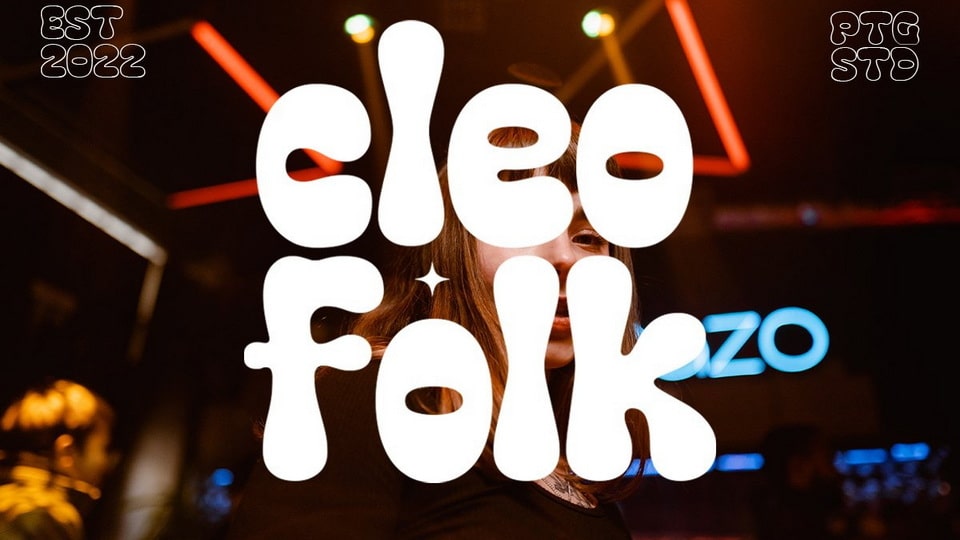
Download Cleo Folk font, a groovy display typeface inspired by retro and vintage style. Its casual and cheerful vibe is perfect for all your hippie, flower-power designs.